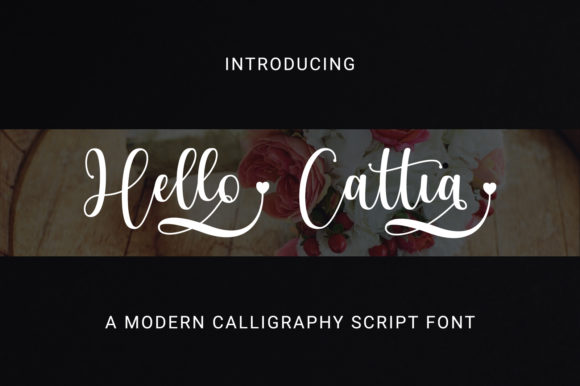
Immerse yourself in the enchanting realm of Hello Cattia, a script font that effortlessly exudes charm and playfulness. This captivating typeface is a masterpiece crafted by the skilled hands of JprintStudio, renowned for their artistry in creating visually stunning fonts. Hello Cattia is more than just a font; it's an invitation to unleash your creativity and transform your ideas into remarkable works of art.
With its delicate strokes and flowing curves, Hello Cattia dances across the page, evoking a sense of joy and whimsy. Each letter is meticulously designed to convey a warm and inviting personality, making it the perfect choice for adding a touch of magic to your creative projects. Whether you're a seasoned designer or just starting your artistic journey, Hello Cattia is the perfect companion to help you bring your vision to life.
Imagine the possibilities as you explore the diverse applications of Hello Cattia. Create wedding invitations that capture the essence of romance and elegance, design artwork that tells captivating stories, elevate your social media posts with a touch of charm, or craft greeting cards that spread laughter and joy. The versatility of Hello Cattia knows no bounds, making it the perfect font for a wide range of creative endeavors.
Unleash your imagination and let Hello Cattia guide you on an artistic adventure. Its cute alternative letters add a touch of modernity, luxury, and class to your projects, transforming them into true masterpieces. With Hello Cattia, you'll discover a world of creative possibilities, where your ideas take center stage and shine with captivating beauty.
Don't settle for ordinary fonts that blend into the background. Embrace the extraordinary with Hello Cattia, the font that ignites creativity and sets your projects apart. Let your imagination soar as you create designs that captivate and inspire, leaving a lasting impression on all who encounter them.